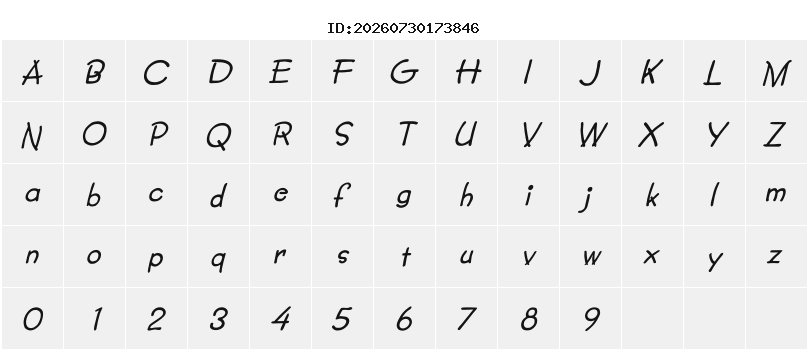
• Font Name: Lumparsky Italic
• Full Font Name: Lumparsky Italic
About Lumparsky Italic.ttf
Lumparsky Italic.ttf is a modern, elegant sans-serif font designed for ultimate readability and visual harmony. Perfect for branding, headlines, web design, and print materials.